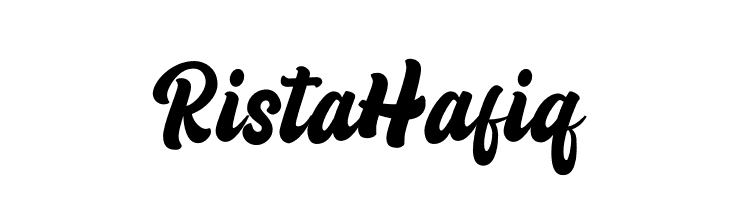
A playful, handwritten font with smooth curves and a casual style.
An elegant, flowing script font with artistic flourishes and modern appeal.
A dynamic and flowing script font with elegant cursive letterforms.
An elegant, flowing script font with smooth, cursive strokes.
A playful, handwritten-style font with a whimsical and casual feel.
A whimsical and elegant script font with flowing curves and playful loops.
A dynamic script font with fluid, cursive strokes and bold uppercase letters.
An elegant script font with flowing, cursive lines and graceful curves.
A modern, narrow font with artistic curves and angles.
A romantic, cursive font with elegant loops and decorative flair.